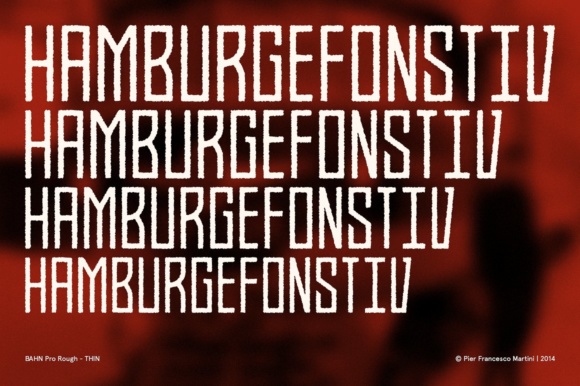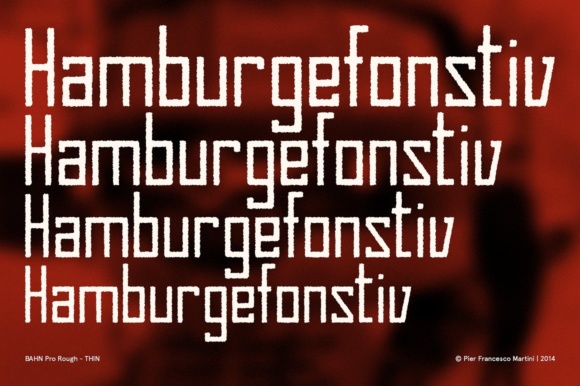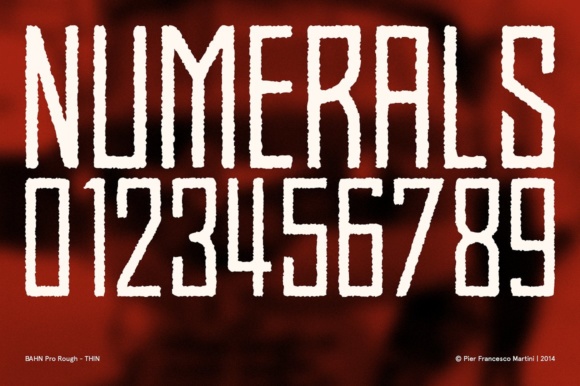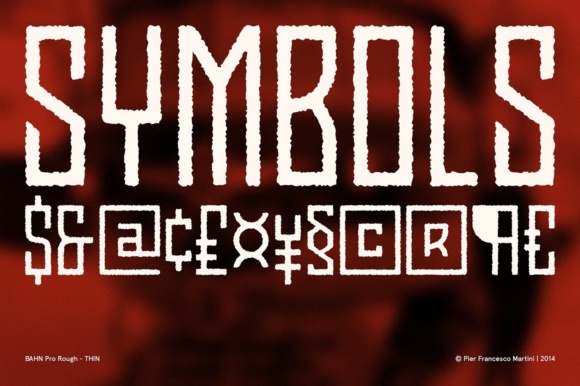
Bahn Thin Font: A Soviet-Inspired Display Font for Masculine Projects
In the world of typography, fonts play a crucial role in conveying the tone and personality of a brand or project. For designers and crafters looking for a display font that exudes ruggedness and severity, Bahn Thin is an excellent choice. This Soviet-inspired version of the original Bahn typeface is perfect for projects that require a strong, masculine aesthetic.
The Origins of Bahn Thin
Bahn Thin is a modern interpretation of the classic Bahn typeface, which was originally designed in the 1970s. The new, thinner version maintains the same rugged edges and severe aesthetic that made the original so popular, but with a more refined and elegant feel. The font’s Soviet-inspired design gives it a unique and distinctive look that sets it apart from other display fonts.
Bahn Thin is characterized by its bold, geometric lines and rugged edges. The font has a strong, masculine feel that makes it perfect for use in displays, headings, and titles. Its clean and simple design ensures that it remains legible even at large sizes, making it ideal for use in a variety of applications, from posters and flyers to digital screens and signage.
Key Features of Bahn Thin
- Rugged Edges: Bahn Thin’s rugged edges give it a unique, hand-crafted feel that sets it apart from other display fonts.
- Soviet-Inspired Design: The font’s Soviet-inspired design gives it a distinctive look that is both bold and elegant.
- Masculine Aesthetic: Bahn Thin’s strong, geometric lines and rugged edges make it perfect for projects that require a masculine aesthetic.
- High Legibility: The font’s clean and simple design ensures that it remains legible even at large sizes.
Using Bahn Thin in Design Projects
Bahn Thin is a versatile font that can be used in a variety of design projects, from posters and flyers to digital screens and signage. Its strong, masculine aesthetic makes it perfect for use in:
- Masculine-themed projects: Bahn Thin is perfect for projects that require a strong, masculine aesthetic, such as sports branding, outdoor gear, and automotive design.
- Intensely themed projects: The font’s rugged edges and severe aesthetic make it ideal for projects that require a bold and intense look, such as music festivals, action movies, and high-energy advertising campaigns.
- Display text: Bahn Thin is perfect for use in display text, such as headings, titles, and captions.
Tips for Using Bahn Thin Effectively
To get the most out of Bahn Thin, here are a few tips to keep in mind:
- Use it sparingly: Bahn Thin is a bold font, so it’s best to use it sparingly to avoid overwhelming the viewer.
- Pair it with a neutral font: Pair Bahn Thin with a neutral font, such as a sans-serif font, to create visual interest and contrast.
- Experiment with different sizes: Bahn Thin remains legible even at large sizes, so experiment with different sizes to create visual hierarchy and emphasis.
Bahn Thin is a unique and versatile display font that is perfect for designers and crafters looking for a strong, masculine aesthetic. Its Soviet-inspired design, rugged edges, and severe aesthetic make it ideal for use in a variety of projects, from posters and flyers to digital screens and signage. By following the tips outlined above, you can use Bahn Thin effectively to add a bold and intense touch to your design projects.